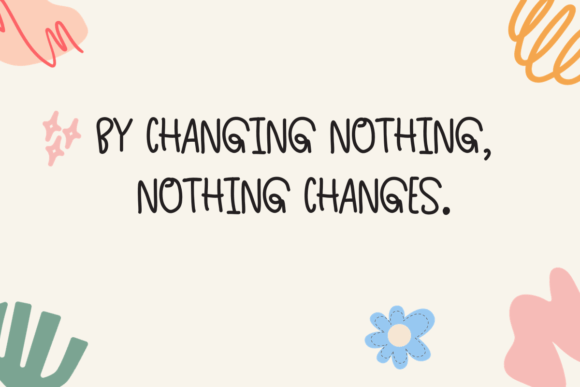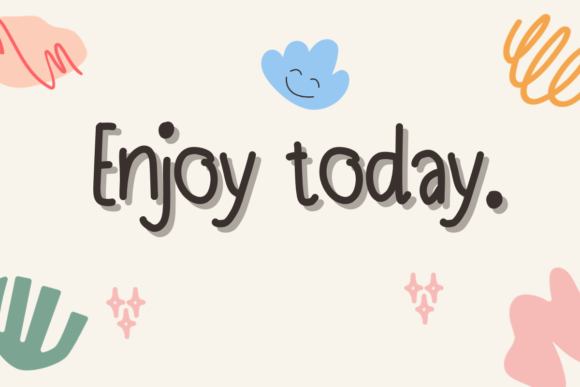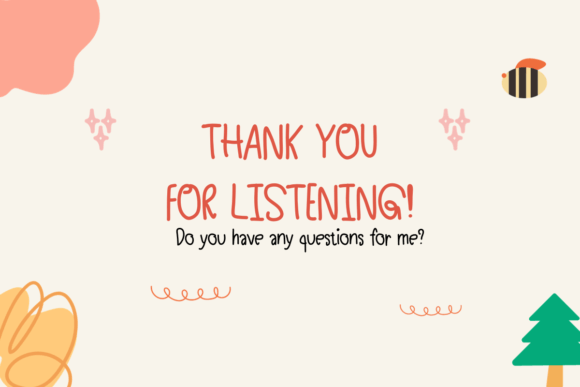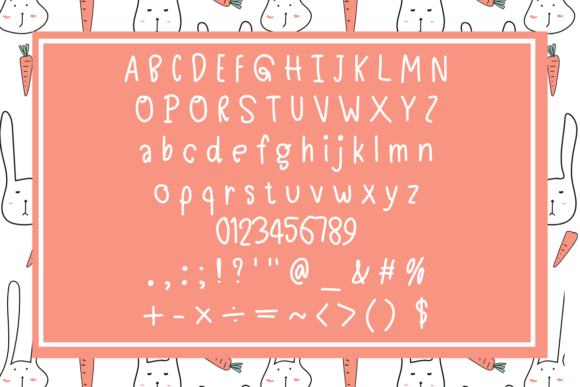
Introducing Carrot Font: The Perfect Handwritten Style for Your Creative Projects
Are you a designer, crafter, or DIY enthusiast looking for a unique and versatile font to add a personal touch to your creations? Look no further than Carrot Font, a beautiful handwritten font that’s perfect for a wide range of projects. In this article, we’ll explore the features and benefits of Carrot Font, and show you how to make the most of this amazing resource.
What is Carrot Font?
Carrot Font is a carefully crafted handwritten font that’s designed to bring a touch of warmth and personality to your designs. With its flowing lines and natural feel, this font is perfect for creating a sense of connection with your audience. Whether you’re taking notes, writing a diary, or making greeting cards, Carrot Font is the ideal choice.
Uses for Carrot Font
While Carrot Font is perfect for personal projects like note-taking and journaling, its versatility means it can be used for a wide range of designs, including:
- Banners: Create eye-catching banners for events, promotions, or social media campaigns.
- Content: Add a personal touch to your blog posts, articles, or website content.
- Mugs: Design personalized mugs for gifts or promotional items.
- Cards: Create unique greeting cards for special occasions.
- Shirts: Design custom t-shirts, hoodies, or other apparel.
- Stationery: Add a touch of elegance to your stationery, including letterheads, invoices, or notebooks.
- Social media posts: Make your social media posts stand out with eye-catching graphics and typography.
Benefits of Using Carrot Font
So why choose Carrot Font for your next project? Here are just a few benefits:
- Unique and eye-catching: Carrot Font’s handwritten style sets it apart from more traditional fonts, adding a touch of personality to your designs.
- Versatile: From personal projects to commercial designs, Carrot Font can be used in a wide range of applications.
- Easy to read: Despite its handwritten style, Carrot Font is clear and easy to read, making it perfect for body text or headings.
- Customizable: Experiment with different colors, sizes, and styles to make Carrot Font your own.
Tips for Using Carrot Font
To get the most out of Carrot Font, here are a few tips:
- Experiment with colors: Try pairing Carrot Font with different colors to create a unique look.
- Mix and match: Combine Carrot Font with other fonts or graphics to add visual interest.
- Pay attention to spacing: Make sure to leave enough space between lines and words to create a clear and easy-to-read design.
- Have fun: Don’t be afraid to try new things and experiment with different designs.
Carrot Font is a versatile and beautiful handwritten font that’s perfect for designers, crafters, and DIY enthusiasts. With its unique style and wide range of uses, it’s an ideal choice for adding a personal touch to your creations. Whether you’re taking notes, making greeting cards, or designing banners, Carrot Font is the perfect choice. So why not give it a try and see what amazing creations you can come up with?